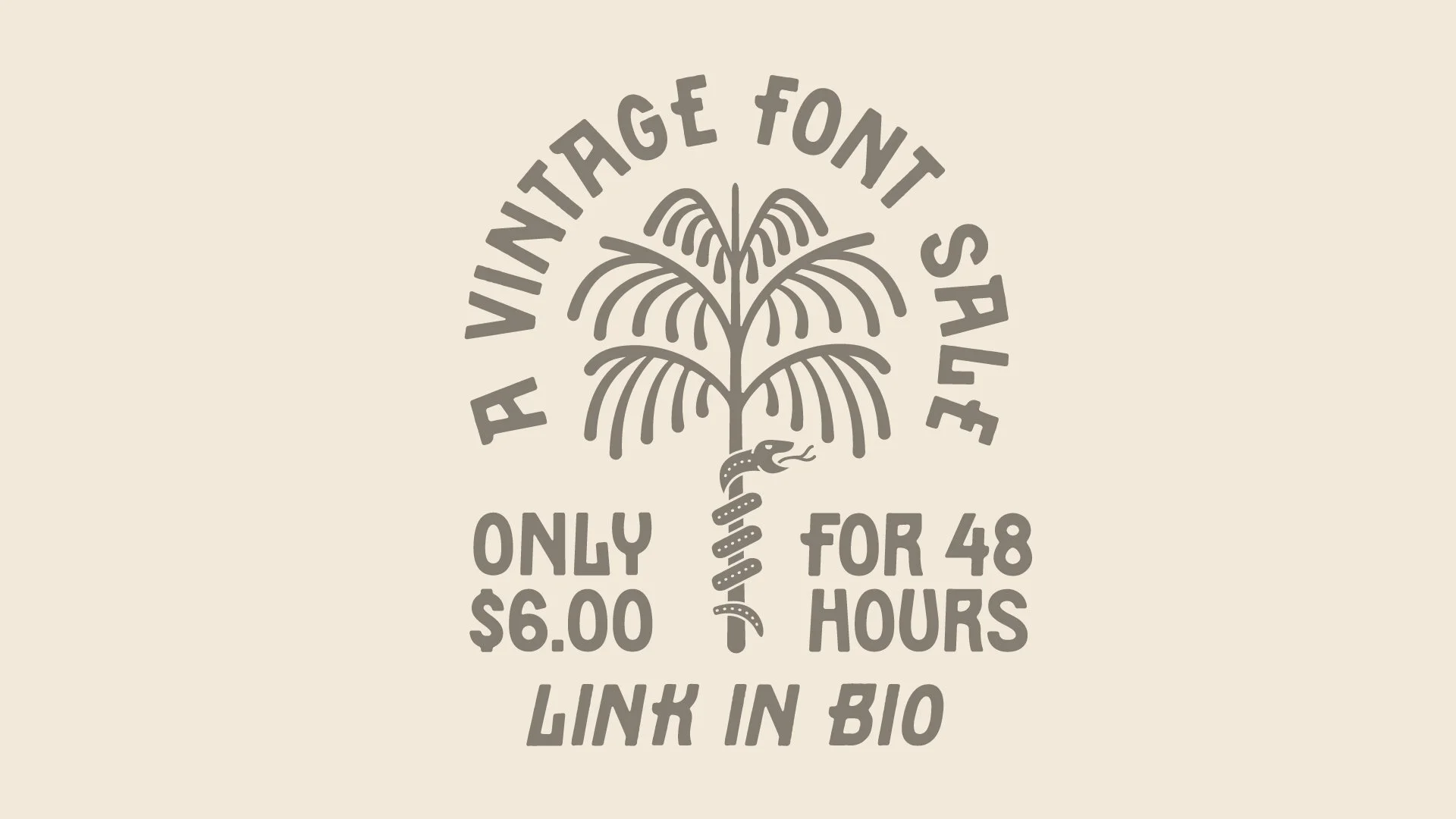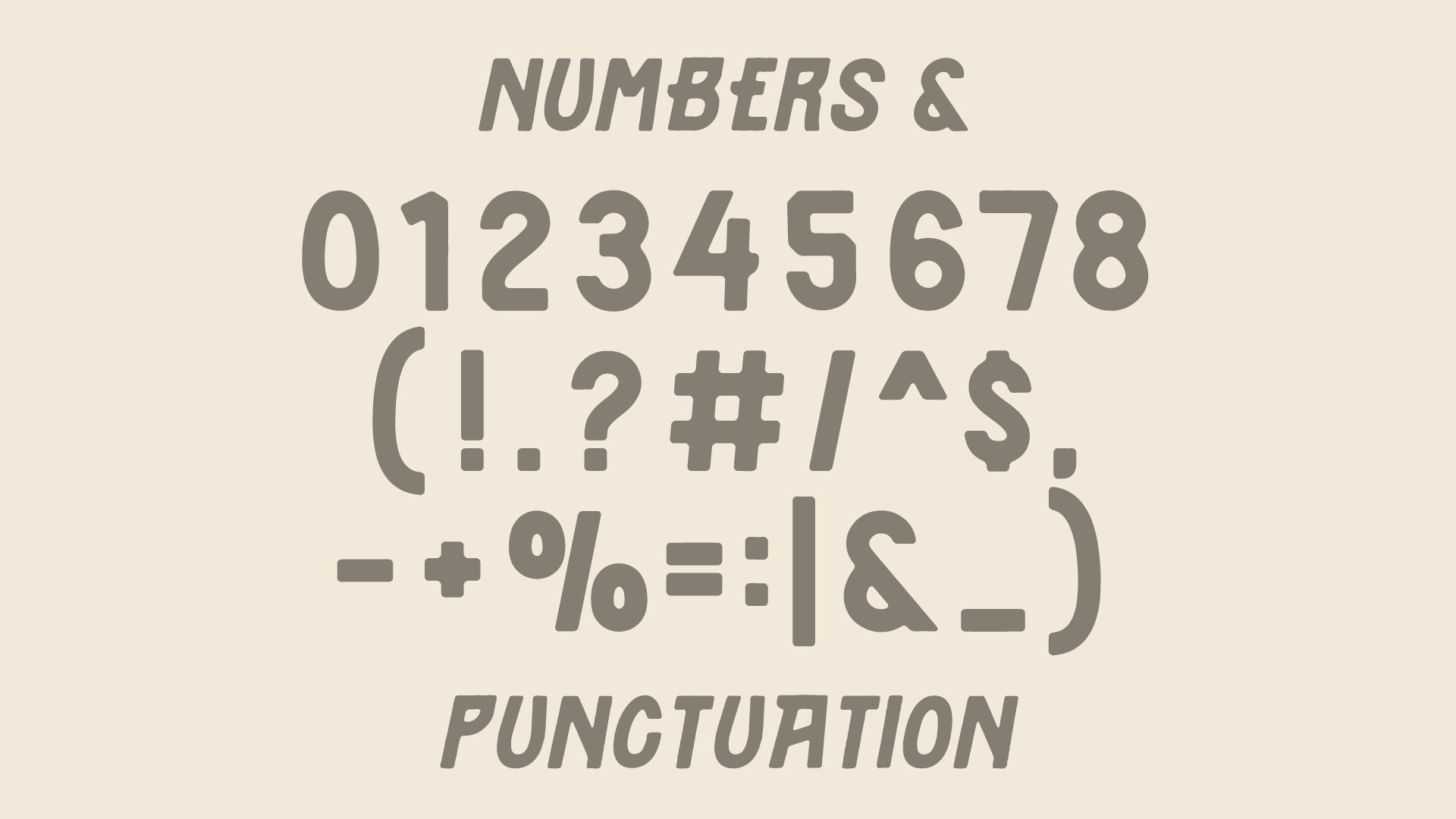
Sunwell Typeface
Introducing the Sunwell Typeface! This handmade and inky typeface comes in 3 type styles: Regular, Alt Regular (no extended crossbars), and Italic.